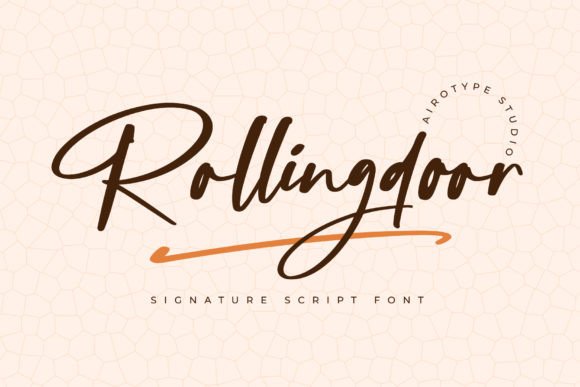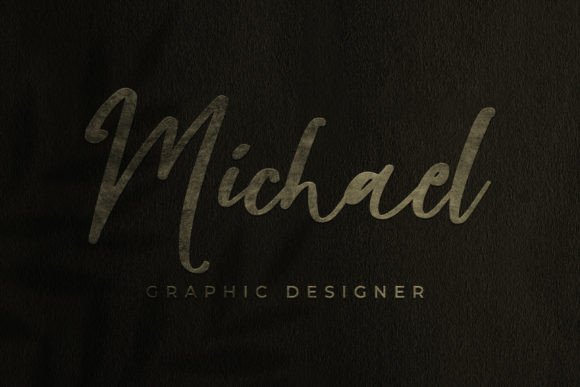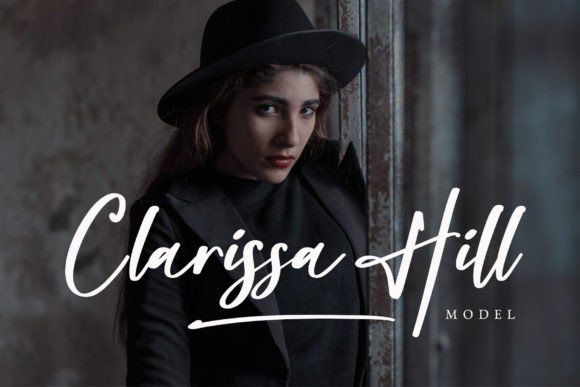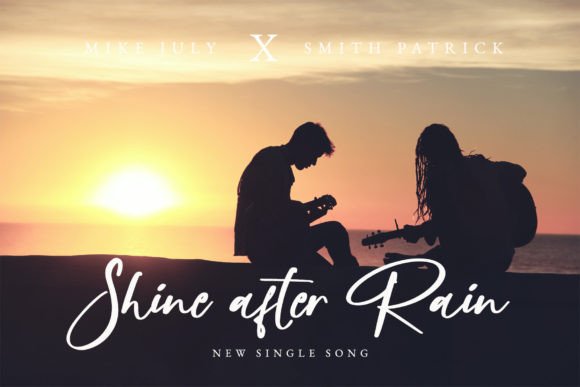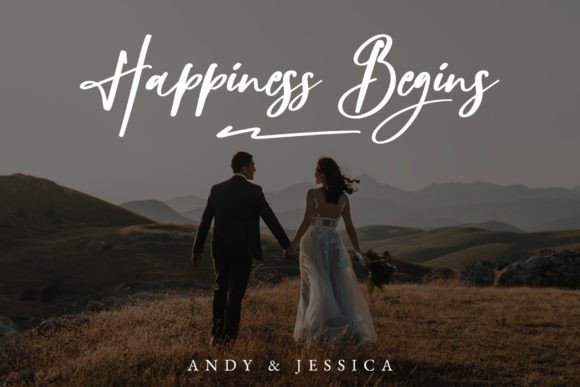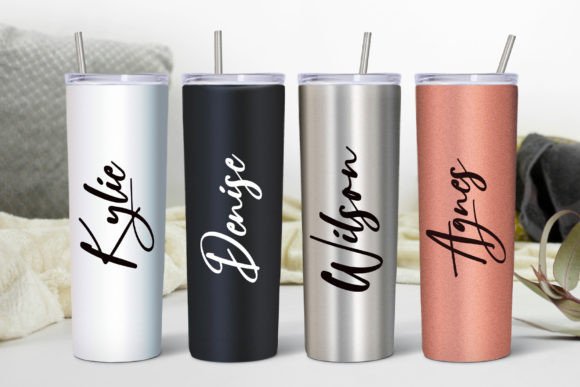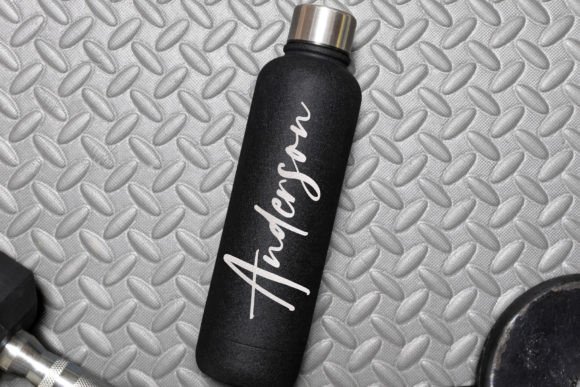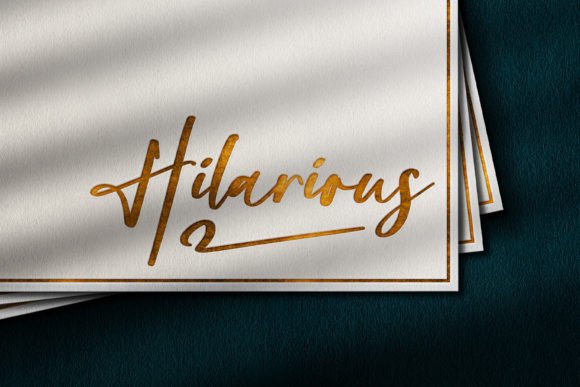
Rolling Door Font
Rolling door is bouncy handwritten signature font. It is simple, elegant, and fancy.
Rolling door is the perfect font for many designs with a handwritten touch, such as weddings, invitations, stickers, sublimation, cards, t-shirt design, farmhouse design, and others.